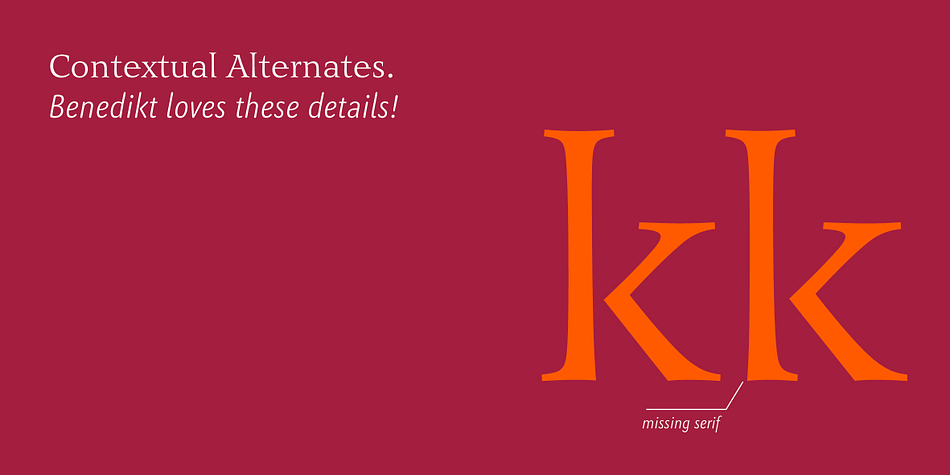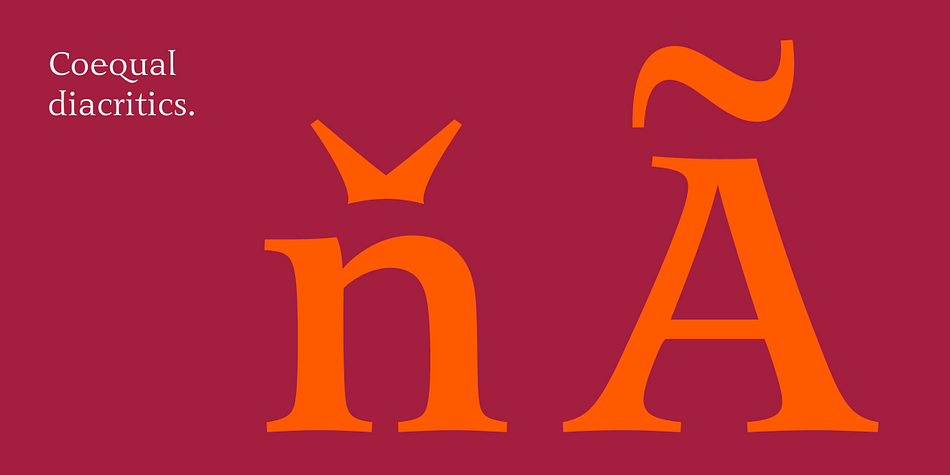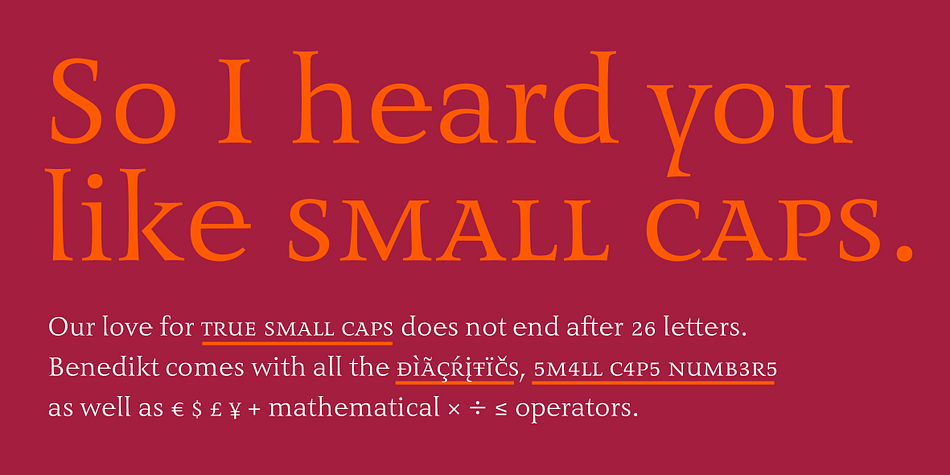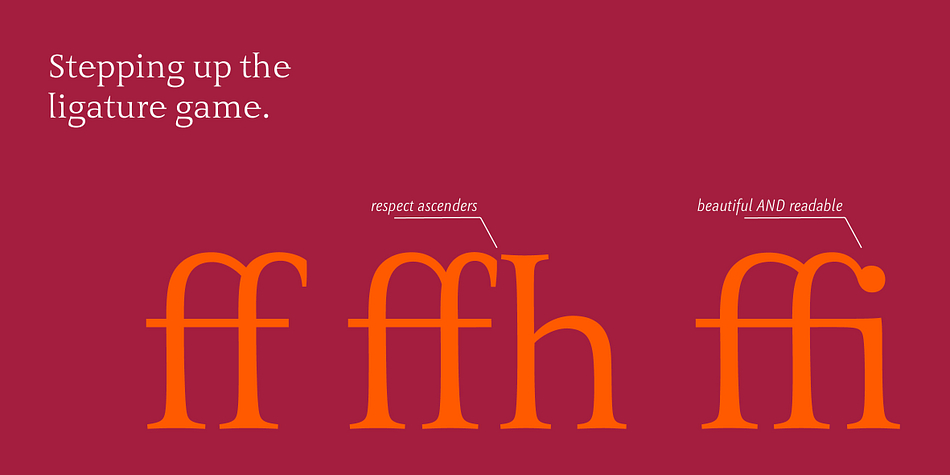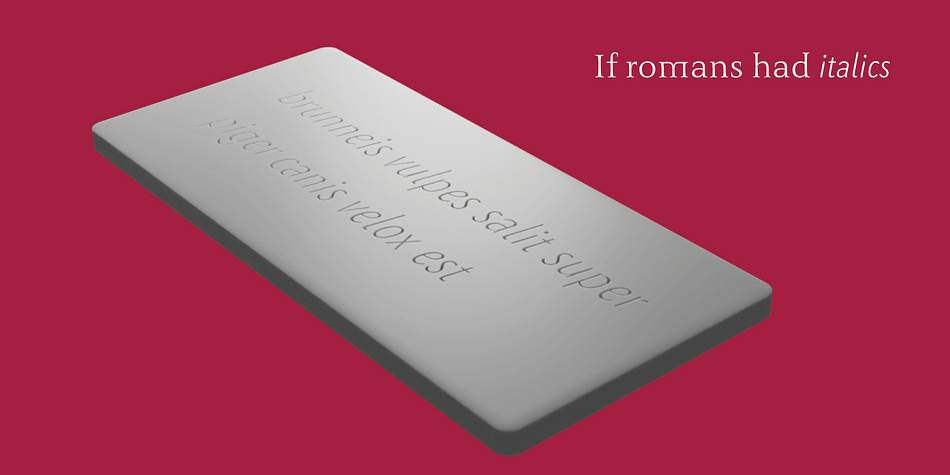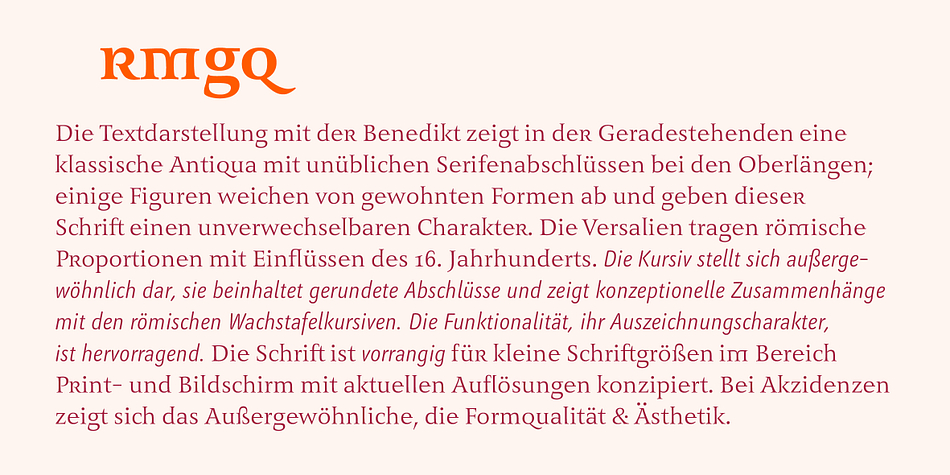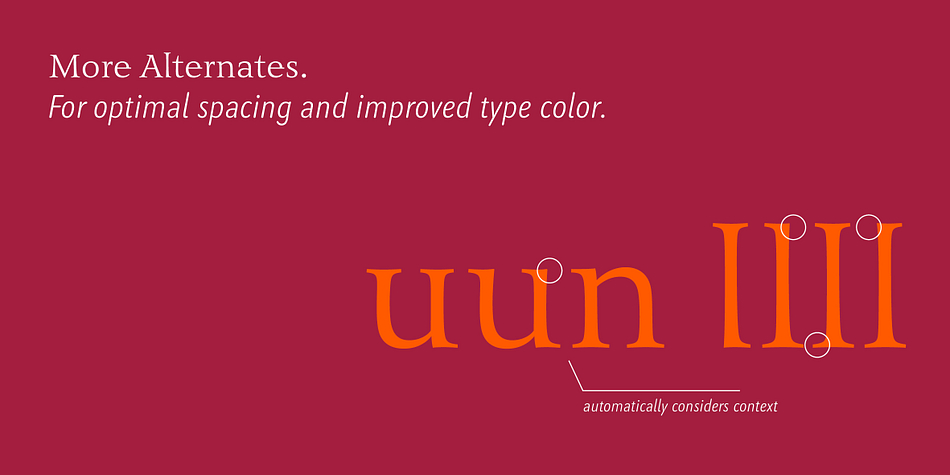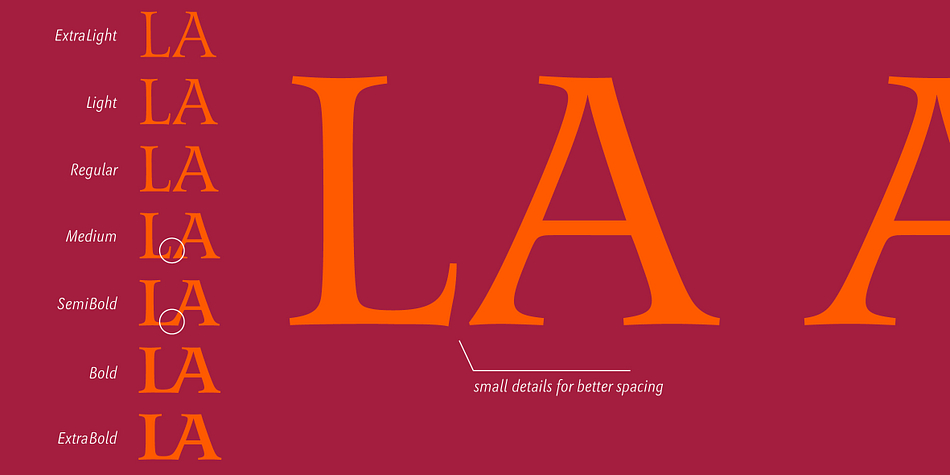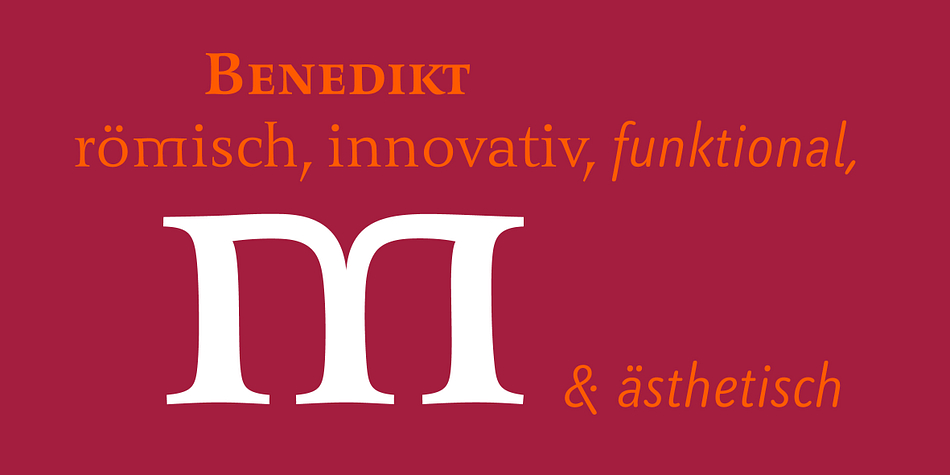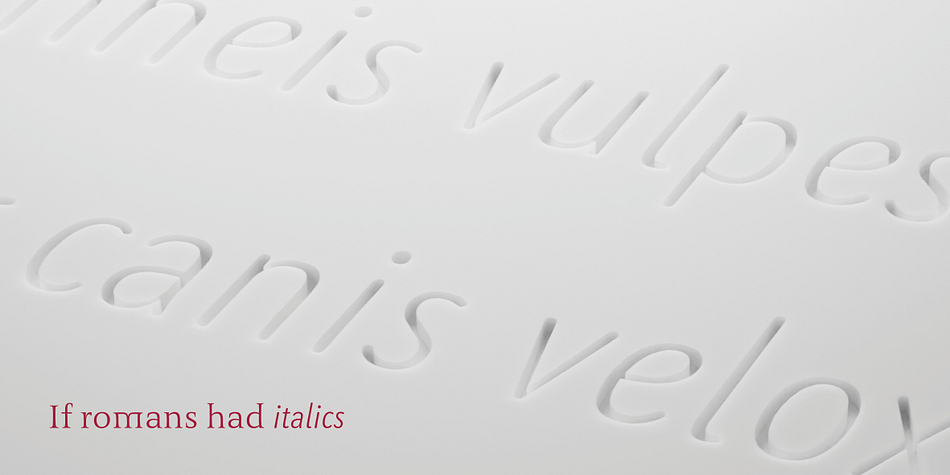
Benedikt
Designed by Hans Heitmann, Benedikt is a sans serif and serif font family. This typeface has fourteen styles and was published by Finaltype.
Benedikt is a stainless serif typeface with a historic feel and tons of modern features. It comes with a huge amount of ligatures and alternative shapes, a sophisticated number system and true small caps.
Copy text set in Benedikt stands out by its well balanced appearance, due to the careful spacing based on Prof. Hans R. Heitmann’s 30 years of experience.